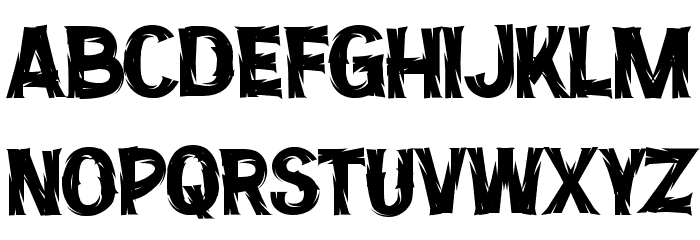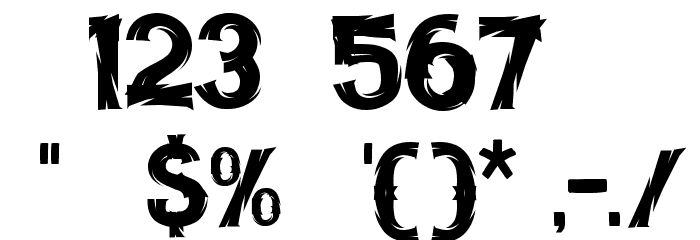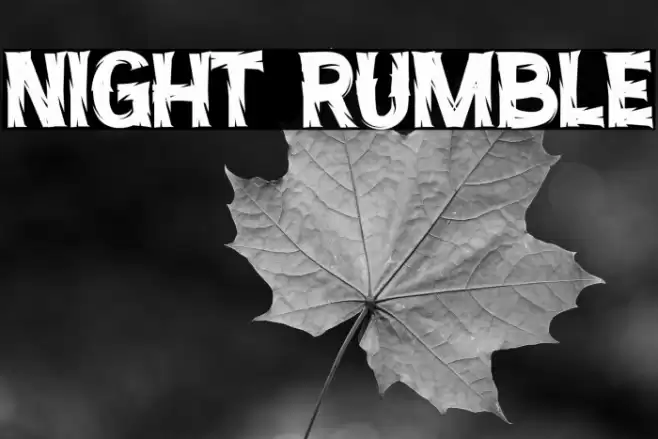
Night Rumble Font
This font features a bold and aggressive style with jagged, angular edges that create a sense of movement and energy. The characters are designed with a rough, distressed texture that adds a dynamic and edgy feel, making it ideal for projects that require a strong visual impact. The uppercase and lowercase letters maintain a consistent design, ensuring readability while still delivering a unique aesthetic. The numbers and special characters follow the same bold and rugged style, making them suitable for attention-grabbing headlines or titles.
A bold, jagged font with a distressed, energetic style.
- Font: Night Rumble
- Proposed Projects: Ideal for music album covers, event posters, extreme sports branding, or any project needing a bold, energetic typeface.
- Overall Style: Modern, Edgy